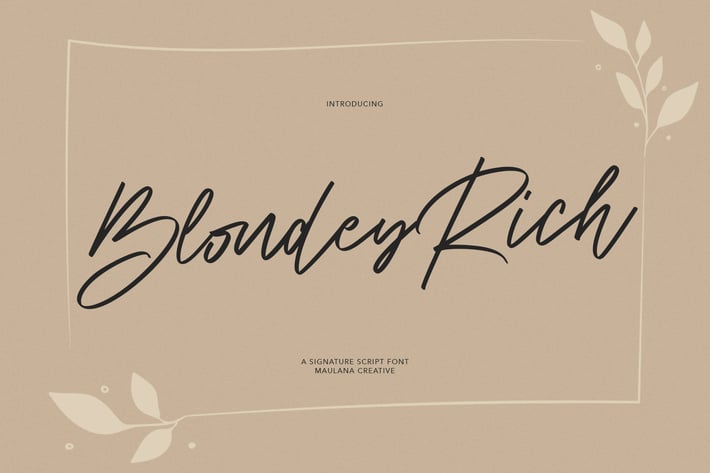
Blondey Rich Signature Script Font
Give your designs an authentic handcrafted feel. "Blondey Rich Signature Script Font" is perfectly suited to stationery, logos and much more.